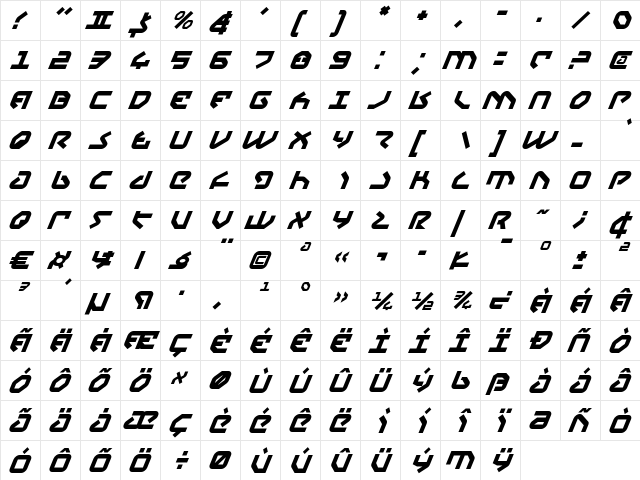
Yahren Italic Italic
| Designer | Dan Zadorozny |
Design Context for Yahren Italic Typeface
Yahren Italic is a composed and adaptable typeface that performs quietly and consistently across a wide range of design contexts. The dynamic lean of this cut emphasises speed and emphasis in any layout.